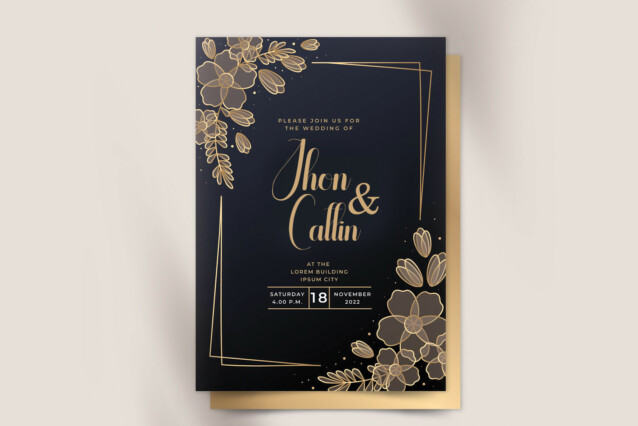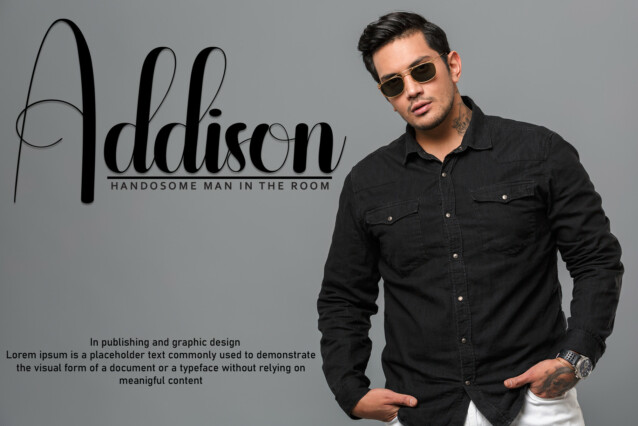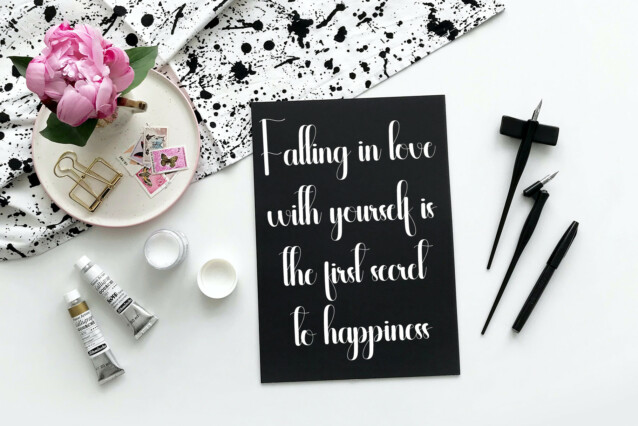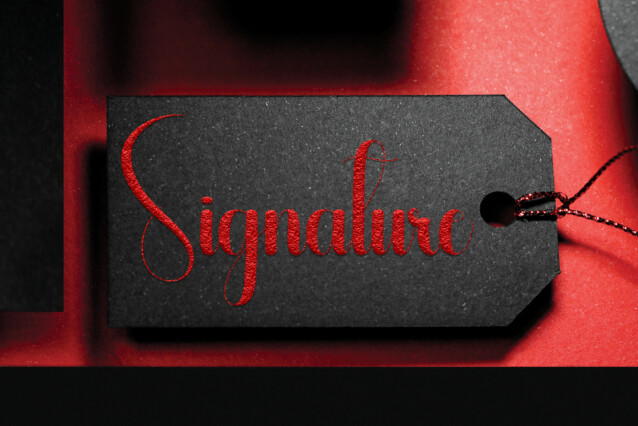
Enlightened Script Font
Enlightened Script Font is a sweet and friendly handwritten display font. Cute and fun, this font is ideal for writing wedding invitations, cards, or any other design that might need a playful touch!